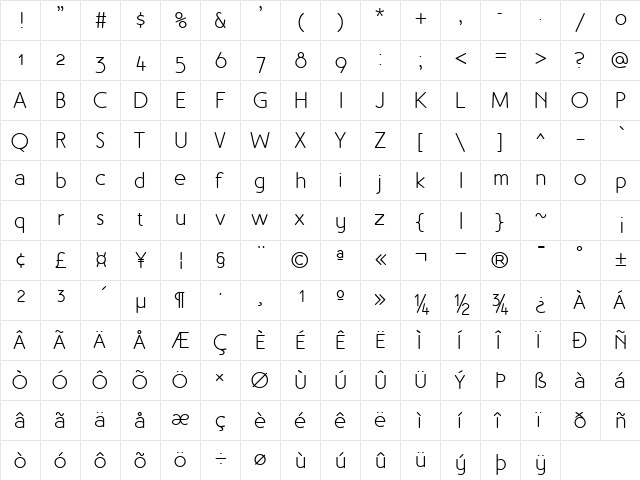
Malvern OSF Regular
Design Context for Malvern OSF Typeface
Malvern OSF offers clean, dependable letterforms without strong stylistic allegiance, making it a practical choice for designers who need flexibility.
Pro Tip: Use Malvern OSF in both headline and body roles to test its range before committing to a single application.